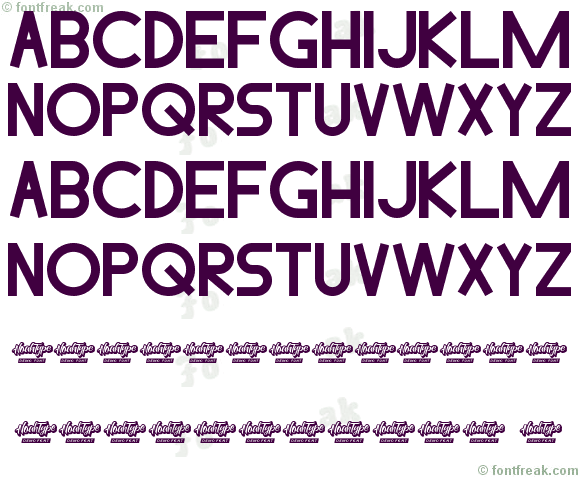
Lopez Demo
About Lopez Demo
Lopez Demo is a captivating display font designed by Noah Type that captures attention with its unique character and style. This font falls into the category of decorative typefaces, making it an ideal choice for projects that require a touch of personality and flair. Its visual characteristics include a medium stroke weight with a balanced contrast that enhances legibility, while the letters feature a playful, yet sophisticated design. The spacing between characters is thoughtfully executed, ensuring that the text remains clear and engaging, even in larger formats. Decorative elements, such as rounded edges and varied line thickness, give Lopez Demo a fresh and modern appeal.
This font is perfect for a variety of creative applications. It shines in wedding invitations, where its elegant yet whimsical vibe can set the tone for the special day. Additionally, it works beautifully on movie posters, capturing the audience's attention with its bold presence. Restaurant menus can also benefit from Lopez Demo, as it adds a unique charm that reflects the personality of the establishment. Furthermore, content creators and graphic designers will find it suitable for social media graphics, helping to convey messages in a visually striking manner.
Targeting graphic designers, small business owners, and content creators, Lopez Demo is versatile enough to enhance a wide range of projects. The font's distinctiveness and charm make it a standout choice for anyone looking to elevate their design work. With the Lopez Demo font free download, you can easily incorporate this stylish typeface into your next project, bringing a fresh perspective and a dash of creativity to your designs. Its engaging personality and modern feel ensure that it will leave a lasting impression on your audience.